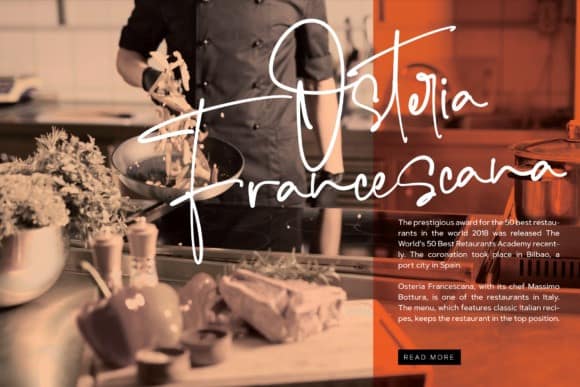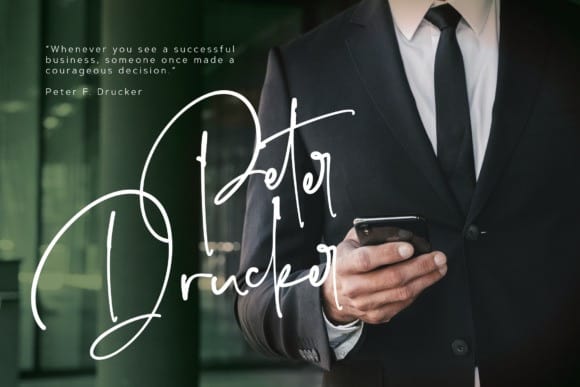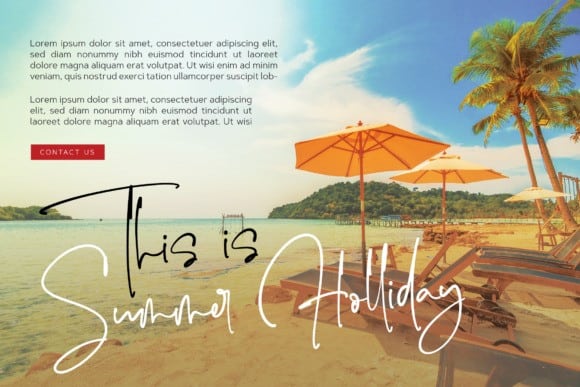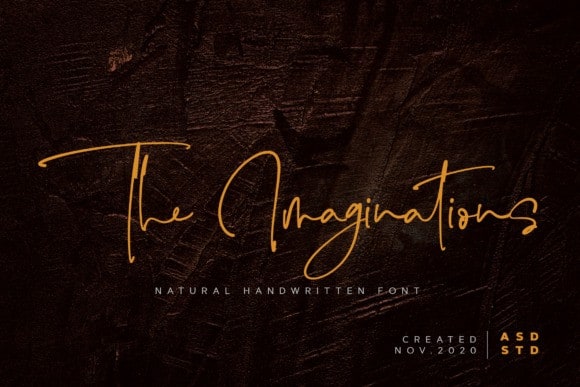
The Imaginations Handwritten Font
The Imaginations Handwritten Font is inspired by the signature that makes writing cool and unique. It’s designed and shared by Asd Studio. This font suitable for use in a variety of design fields, such as event advertisements, product promotions, book titles, activity titles, logos, adventure, and others. This font can when paired with serif font types will make your design project more beautiful and perfect.